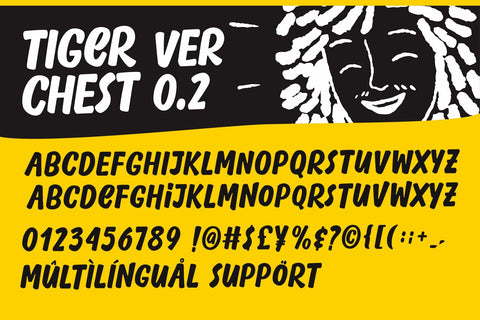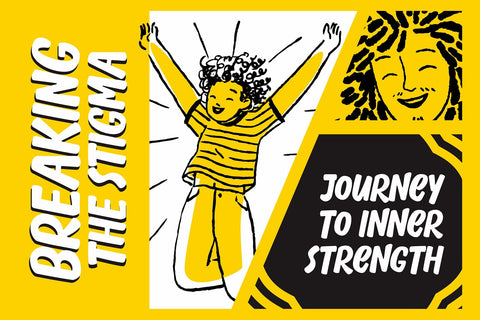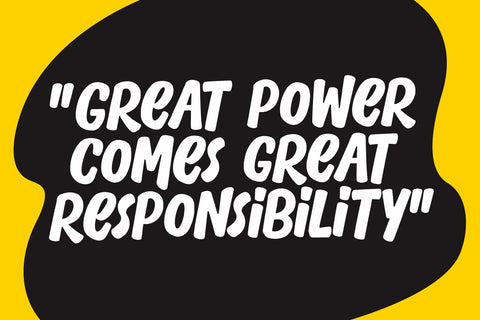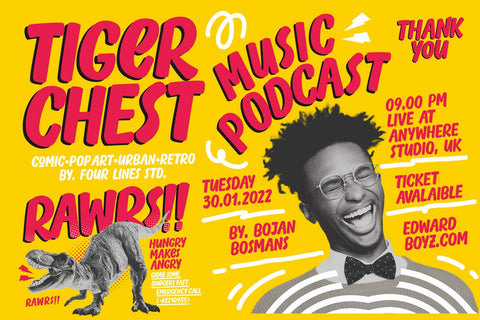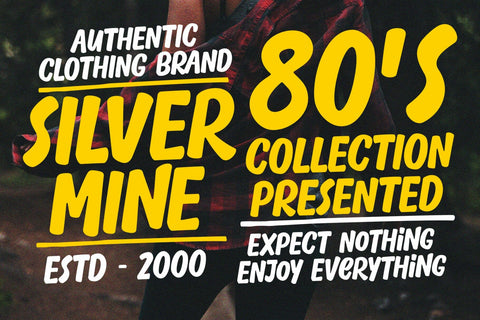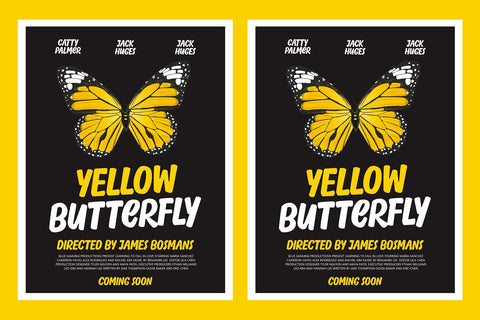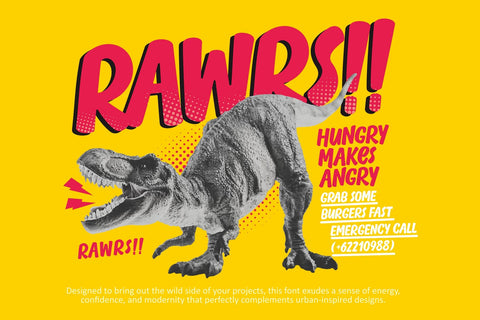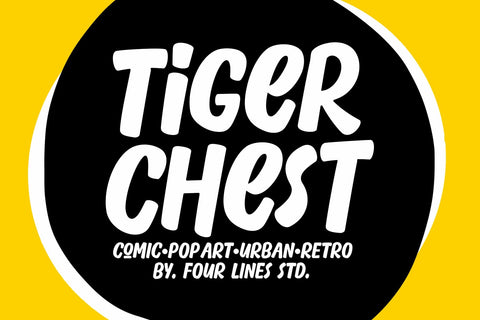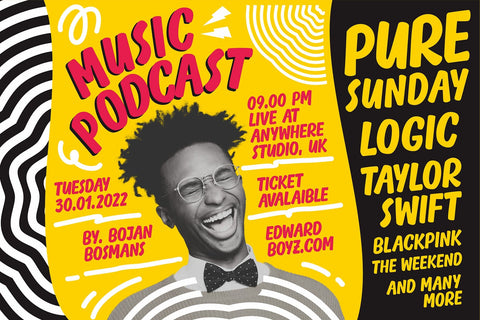
Tiger Chest - Urban Display Font
Introducing "Tiger Chest" - Unleash Your Creativity with Urban Pop Vibes!
With Tiger Chest, your creativity knows no bounds. Break free from the mundane and explore the wild side of design. Whether you're crafting social media graphics, YouTube thumbnails, event posters, or comic book covers, this font will give your projects the urban edge they deserve.